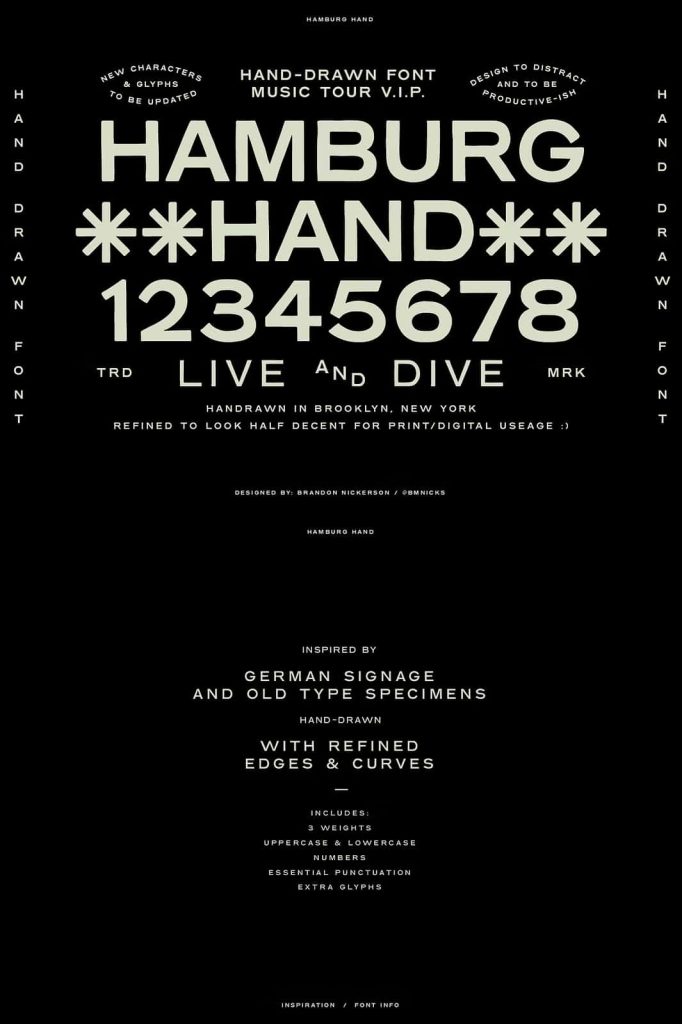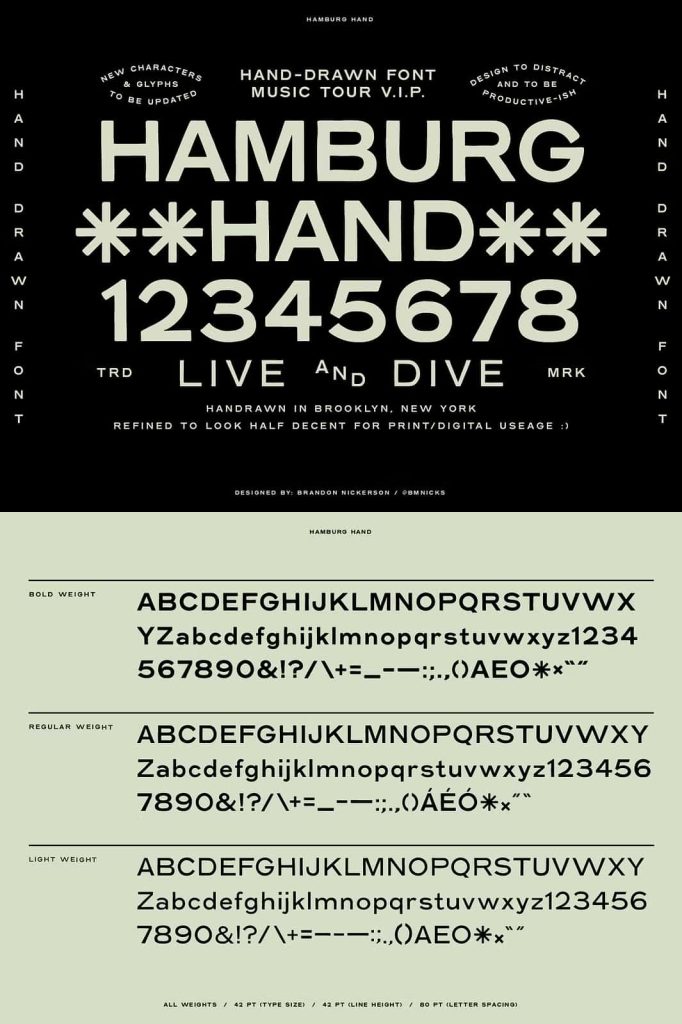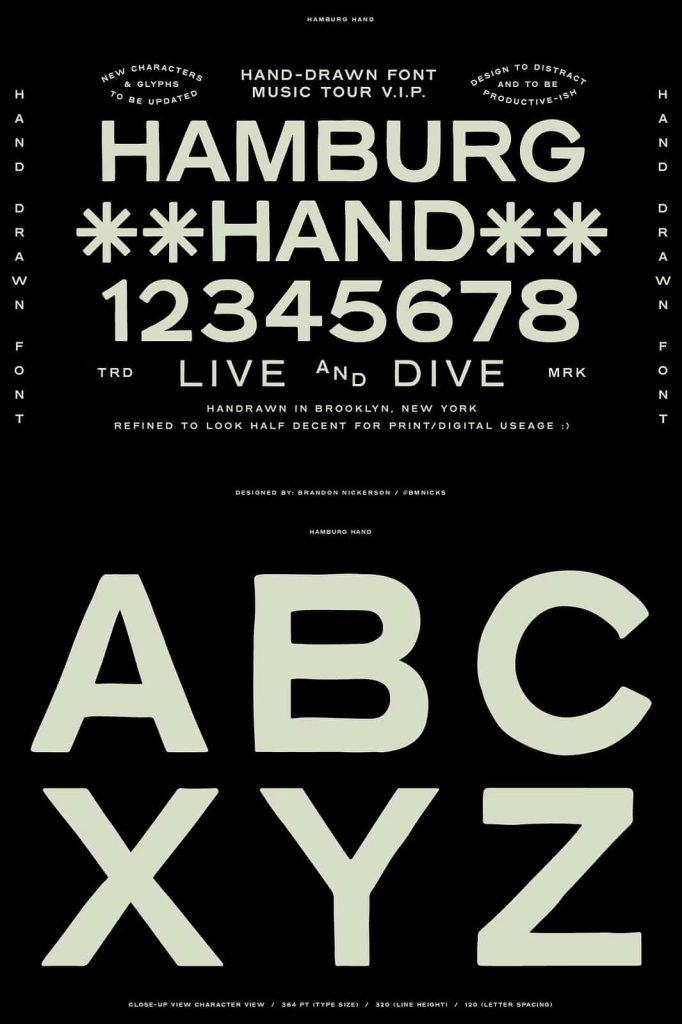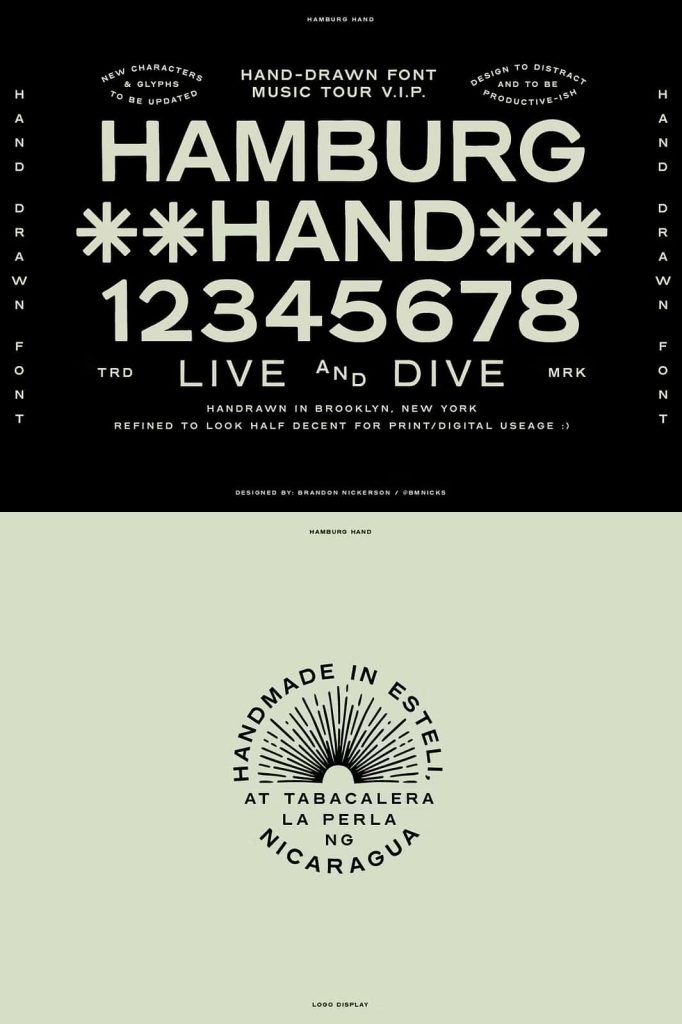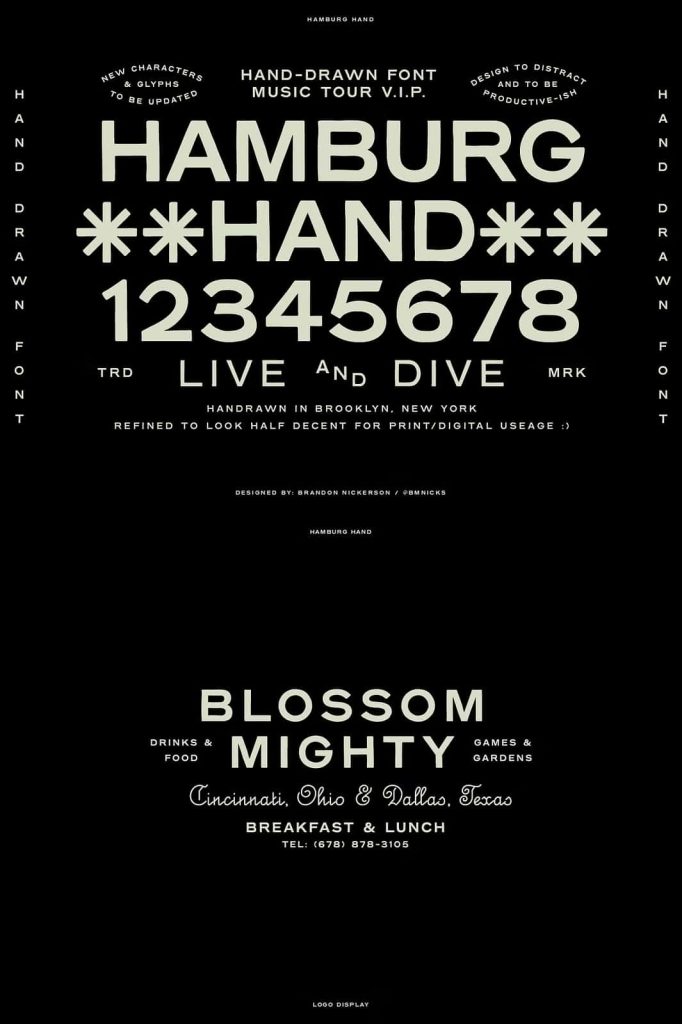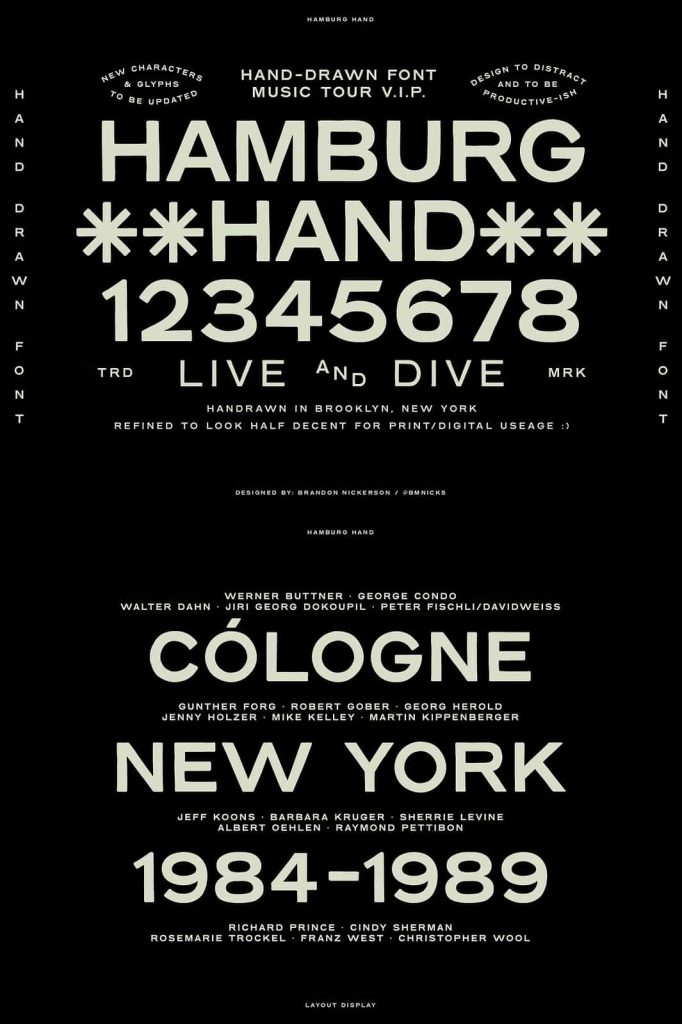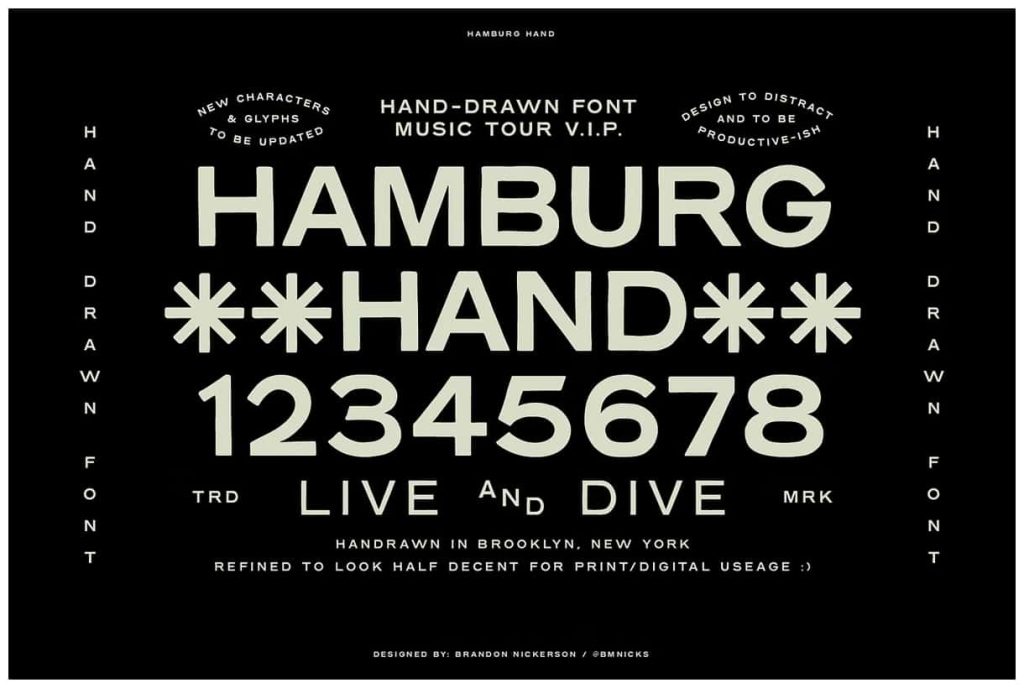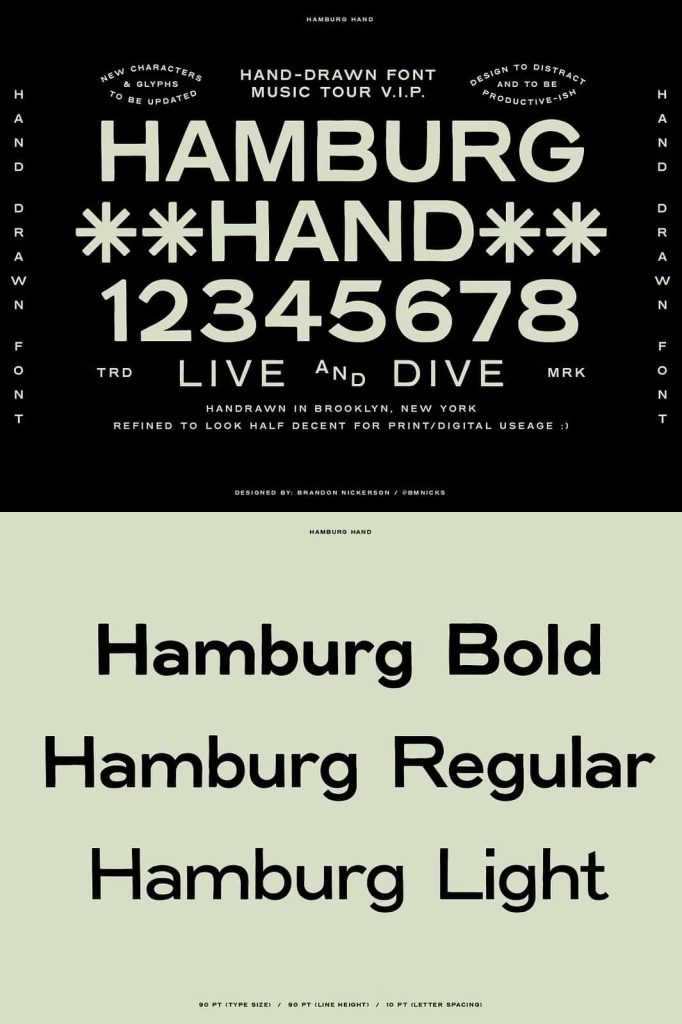
Hamburg Hand Font – Hand-Drawn Typeface Inspired by German Signage
Hamburg Hand Font is a beautifully hand-drawn typeface inspired by the charm of vintage German signage and the elegance of classic type specimens. Every stroke carries the texture and character of traditional hand lettering, blending historical inspiration with modern design versatility. Perfect for branding, logos, packaging, and editorial layouts, Hamburg Hand offers the perfect balance between craftsmanship and creativity. Its distinctive imperfections bring authenticity and warmth to every design, making it an excellent choice for projects that value heritage and artistry.
A Typeface Rooted in Tradition and Character
Hamburg Hand captures the essence of early 20th-century German design, when lettering was not just a means of communication but a true form of art. The font draws inspiration from hand-painted street signage and old type specimen books that celebrated craftsmanship and detail. Each letterform is carefully shaped to reflect the beauty of imperfection — slightly uneven lines, soft curves, and a handcrafted feel that gives the font life and movement.
Rather than relying on rigid digital precision, Hamburg Hand embraces human imperfection, creating a visual experience that feels personal and expressive. Its character evokes nostalgia while remaining versatile enough for modern applications, bridging the gap between vintage authenticity and contemporary design.
Perfect for Branding, Packaging, and Editorial Design
Hamburg Hand Font thrives wherever creativity meets storytelling. Its organic, textured form makes it ideal for branding projects that need to feel approachable, artistic, and genuine. Whether you’re designing a logo for a small craft brewery, a coffee brand, or a handmade product line, this typeface helps communicate the care and authenticity behind your brand.
In editorial layouts and packaging design, Hamburg Hand adds warmth and charm, transforming text into visual art. Its distinct personality stands out in titles, quotes, and promotional materials, especially when paired with clean sans-serif fonts for balance. The font’s old-world influence and human touch make it especially suitable for vintage posters, menu designs, and event branding that want to evoke history, culture, and craftsmanship.
Handcrafted Quality Meets Modern Versatility
What makes Hamburg Hand unique is its ability to look both historical and current. While it channels the aesthetics of old German sign painters, it also fits seamlessly into contemporary design environments. Designers can use it to create a sense of heritage and authenticity without sacrificing clarity or usability. Its handcrafted texture feels personal, while its structure ensures legibility across various sizes and applications.
Each letter carries the essence of handmade artistry, allowing your text to look natural and expressive rather than mechanical or sterile. Hamburg Hand’s humanistic qualities make it a wonderful choice for designs that need to connect emotionally with audiences. It’s not just a font — it’s a visual voice that tells a story through its form.
Key Features of Hamburg Hand Font
- Hand-drawn authenticity: Inspired by classic German signage and traditional lettering.
- Rich historical influence: Reflects the aesthetics of vintage type specimens and handmade typography.
- Organic texture: Soft edges and natural curves add depth and warmth to your design.
- Versatile applications: Perfect for branding, posters, packaging, and editorial projects.
- Readable and expressive: Balanced structure ensures clarity while maintaining personality.
- Evokes nostalgia: Combines vintage charm with a fresh, modern usability.
Design with Authentic Personality
Hamburg Hand Font gives designers a way to reconnect with the human touch that defined early typography. It celebrates craftsmanship — a quality often lost in modern, overly polished typefaces. Each stroke feels deliberate, as though drawn by a skilled artisan, lending an honest and tactile feel to your visuals. When you use Hamburg Hand, you’re not just applying text — you’re adding character, storytelling, and emotion to your design.
This makes it especially effective for creative brands that want to emphasize quality and authenticity. Whether you’re crafting a logo for a local artisan brand or designing packaging that needs to look handcrafted, Hamburg Hand delivers the right tone. It also pairs beautifully with modern sans-serif fonts, creating contrast and visual interest in multi-font compositions.
Hamburg Hand Font is a tribute to the art of hand lettering and the timeless beauty of vintage design. Inspired by German signage and traditional type specimens, it offers a textured, humanized look that connects past and present. Perfect for brands and designers who value authenticity, Hamburg Hand brings warmth, history, and creativity to any project.
Let your designs reflect craftsmanship and personality with Hamburg Hand — the hand-drawn font that combines old-world charm with modern versatility.